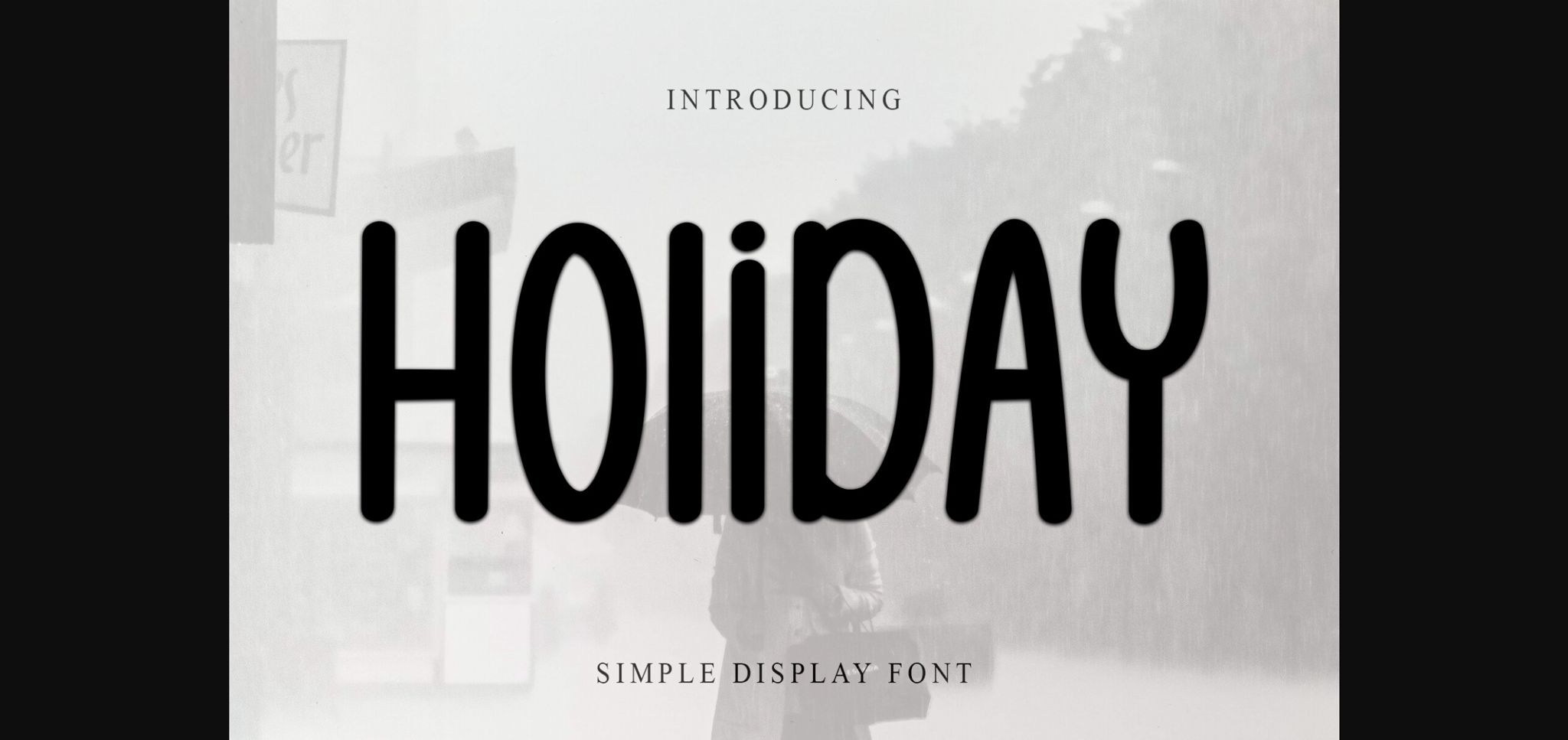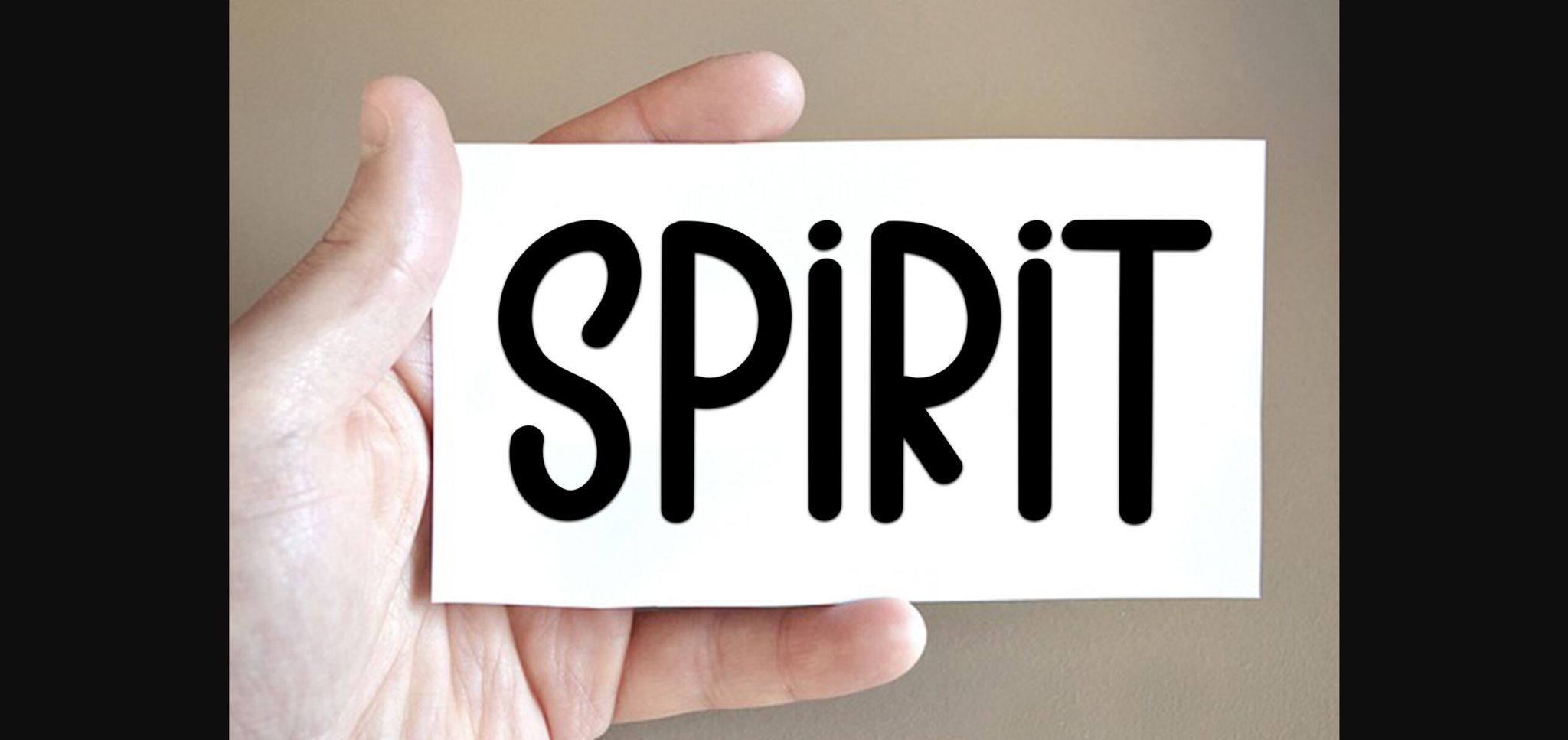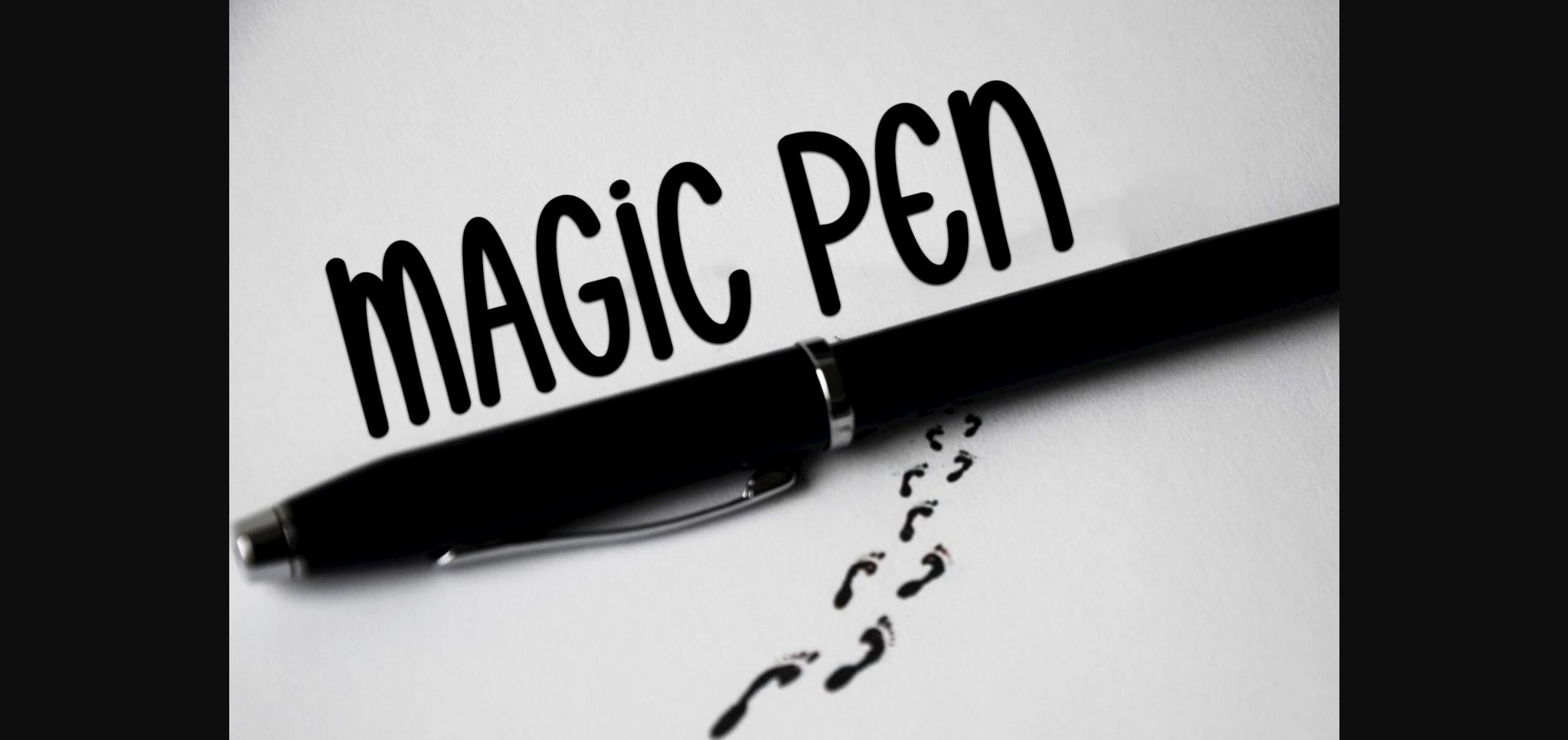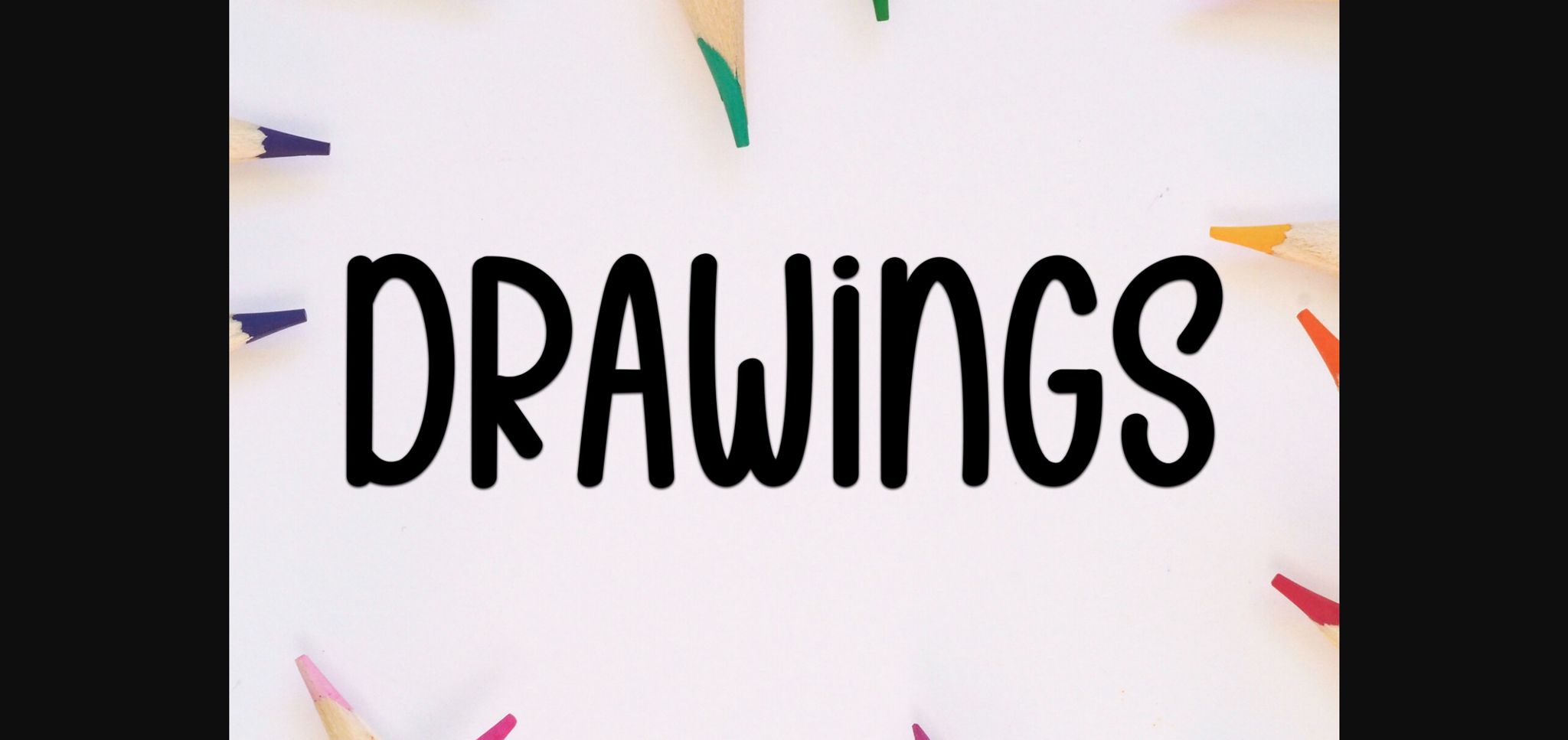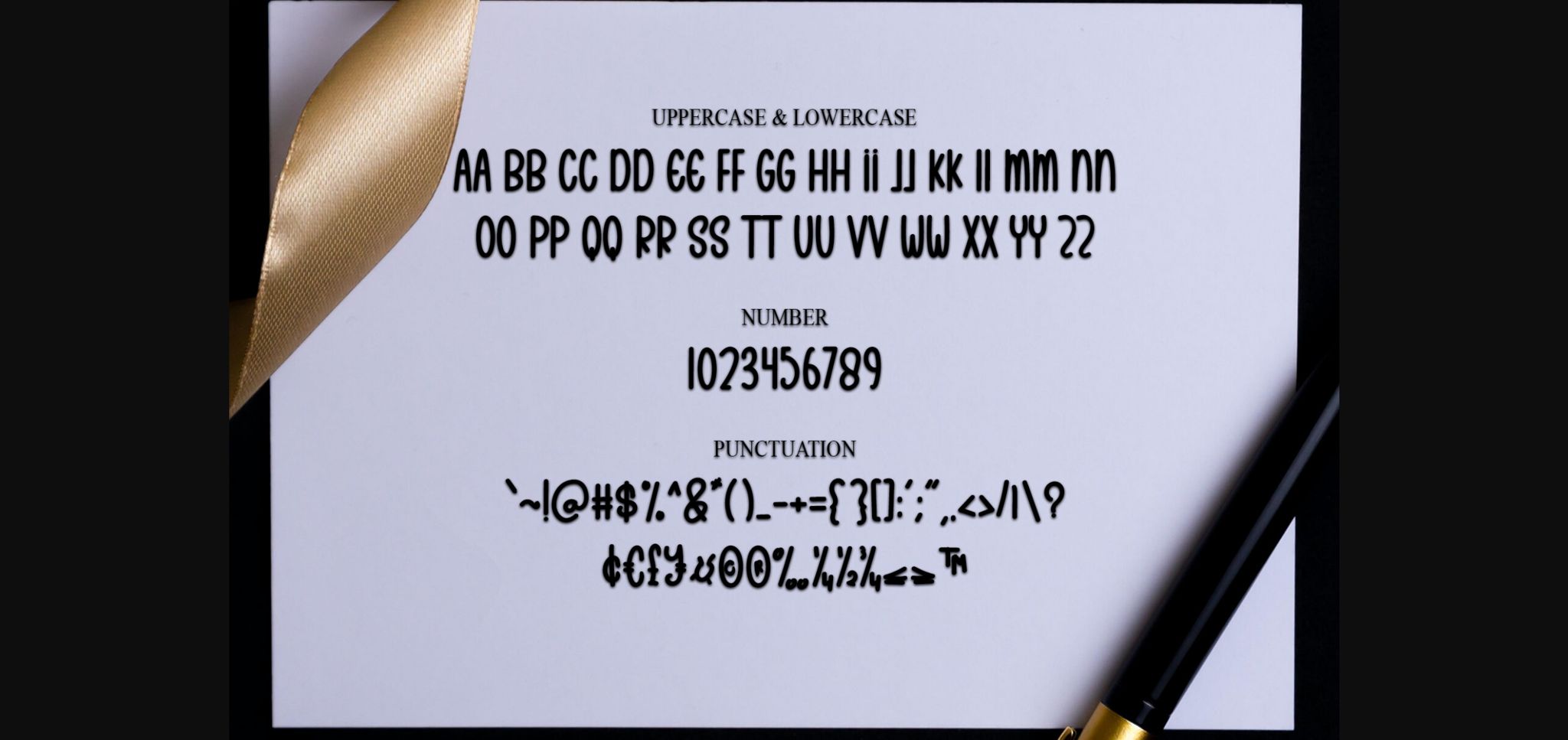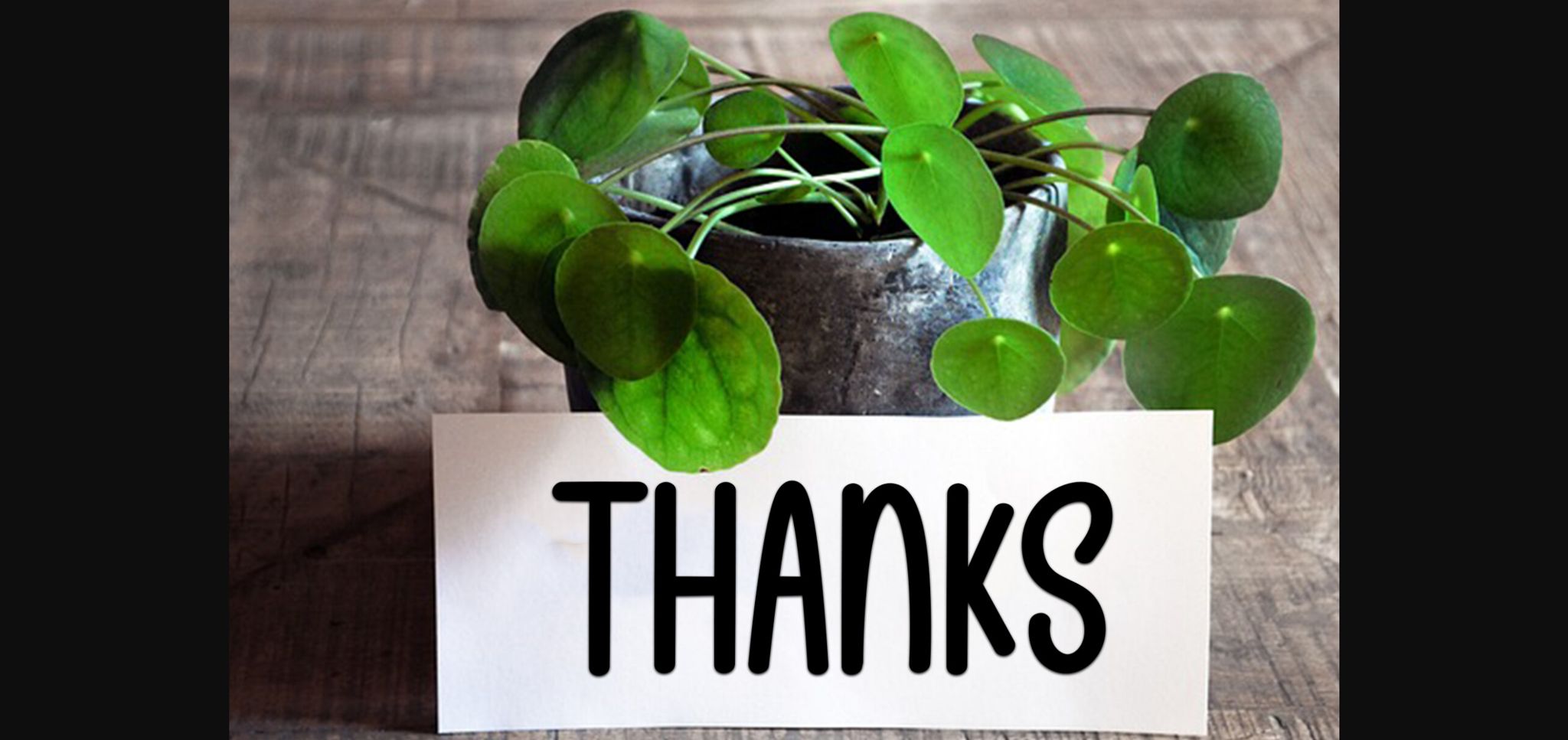
About Holiday Font
Holiday is a cool sans-serif font carefully created with a touch of elegance. Whether you’re looking for fonts for Instagram or calligraphy scripts for DIY projects, this font will turn any creative idea into a true piece of art!